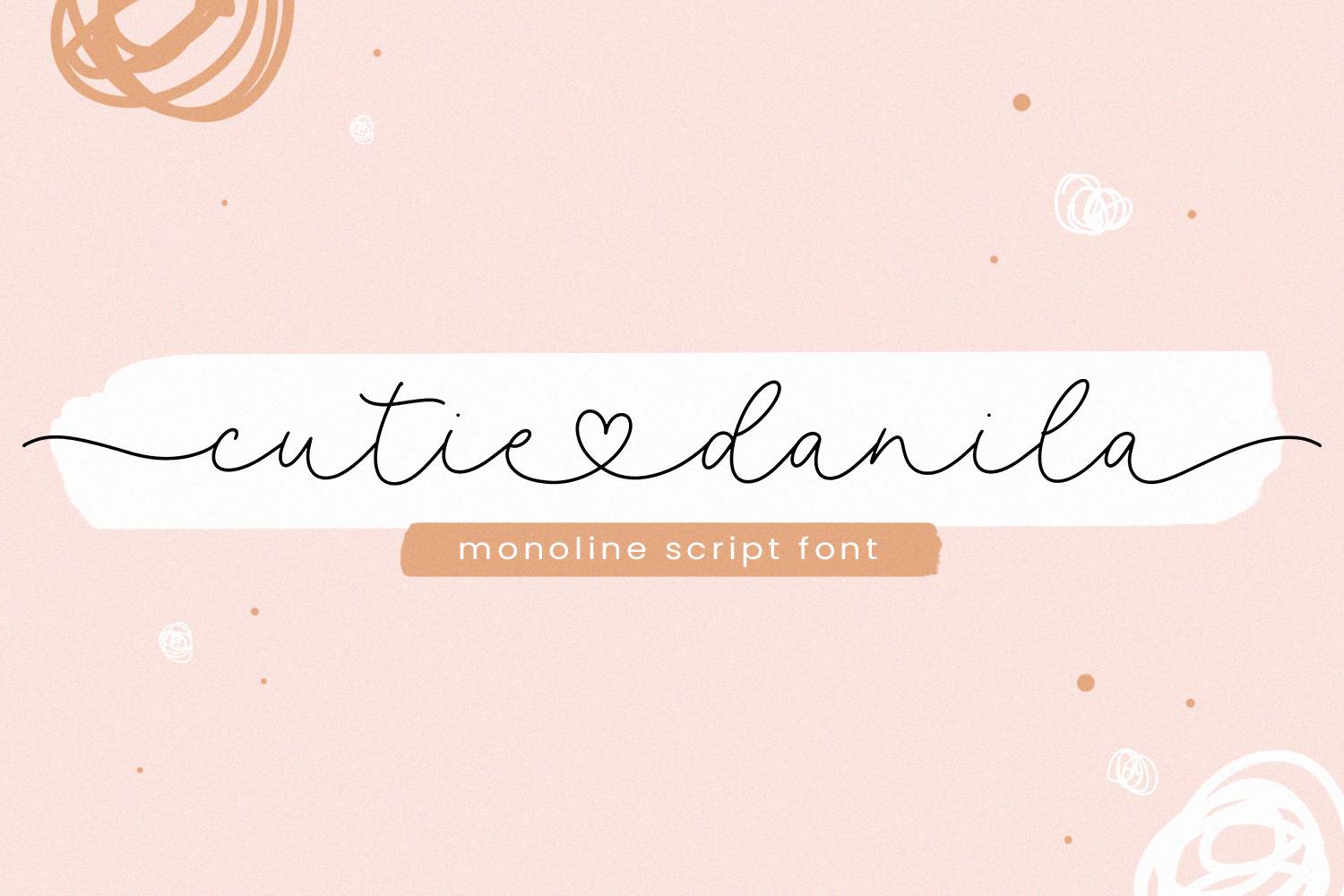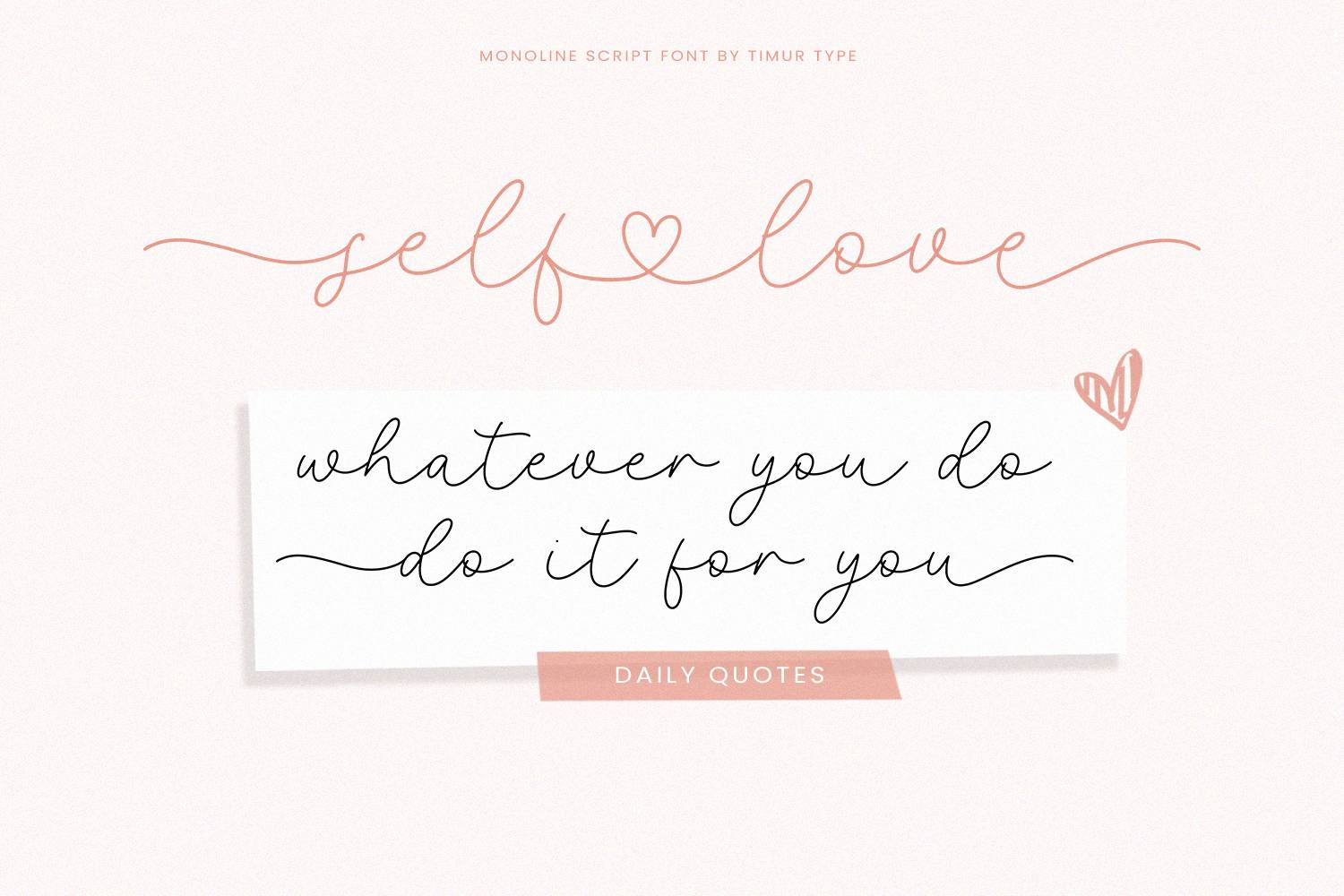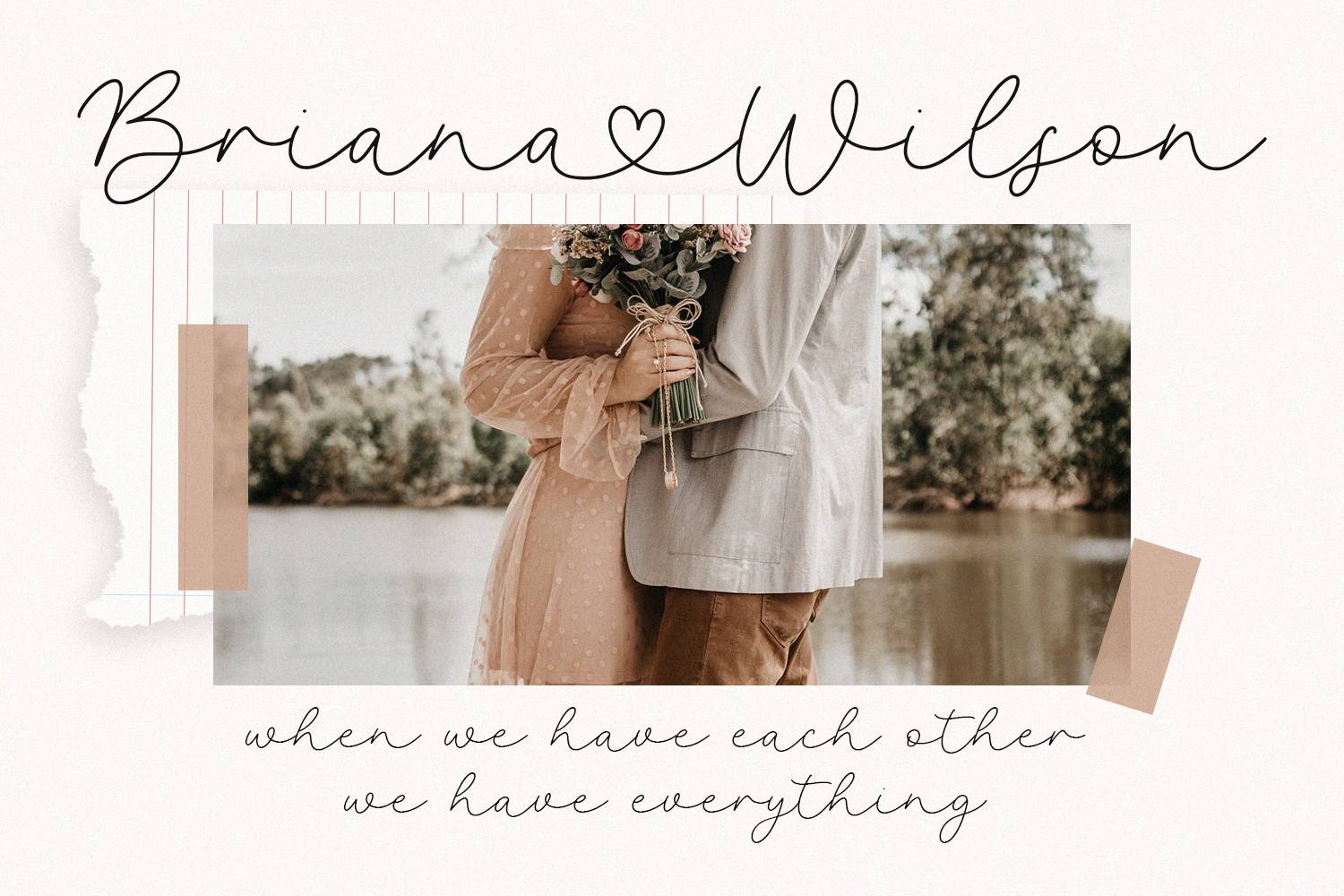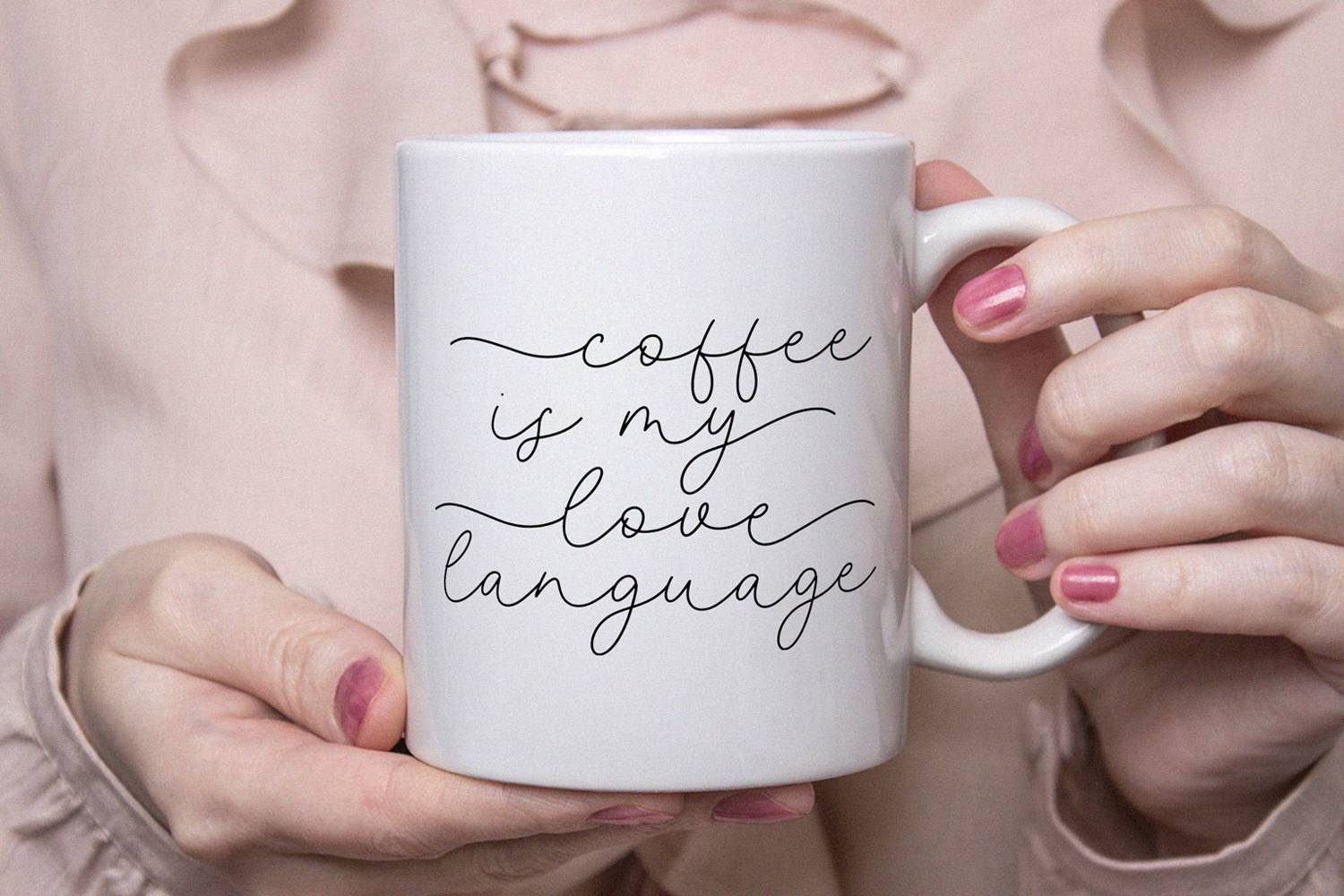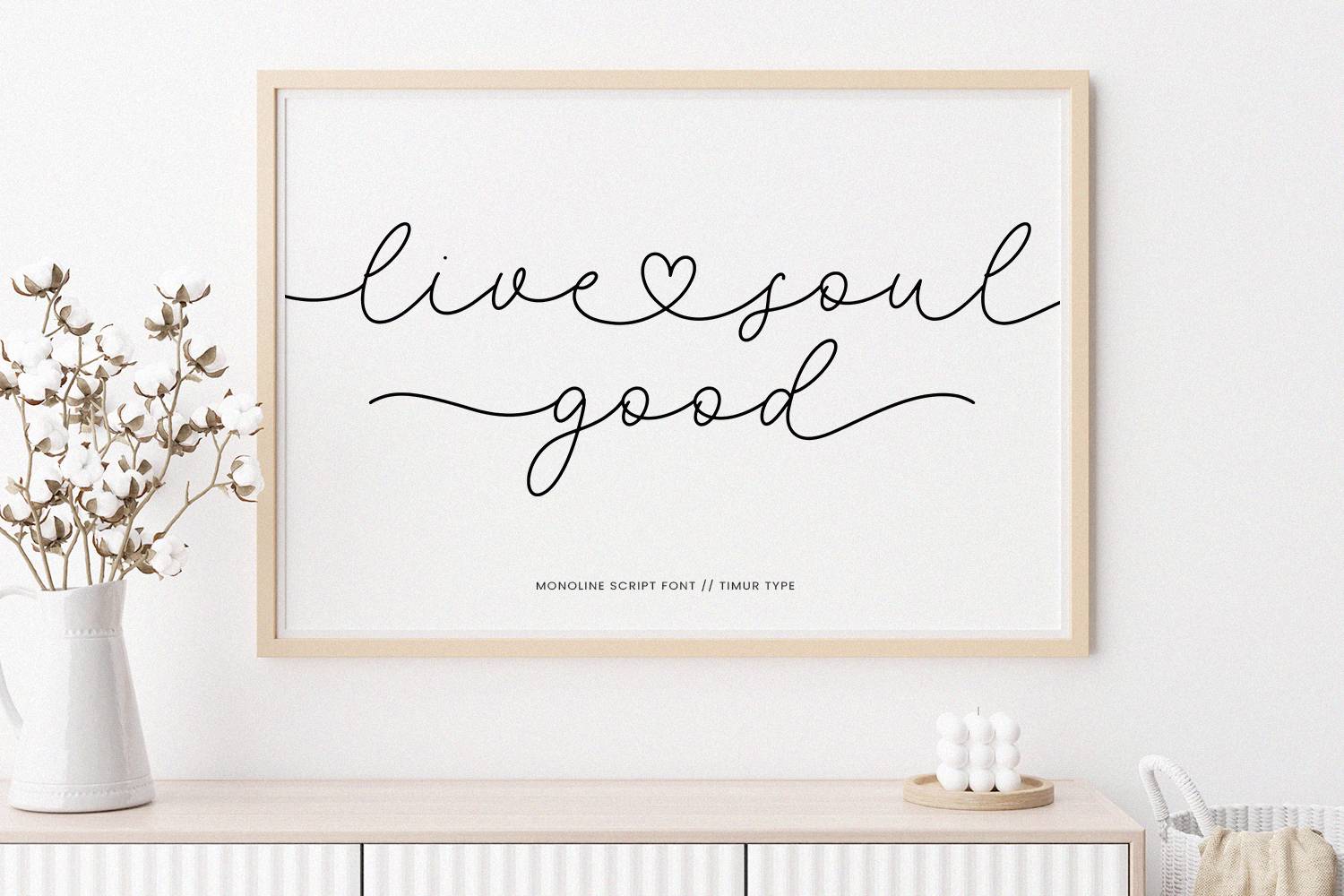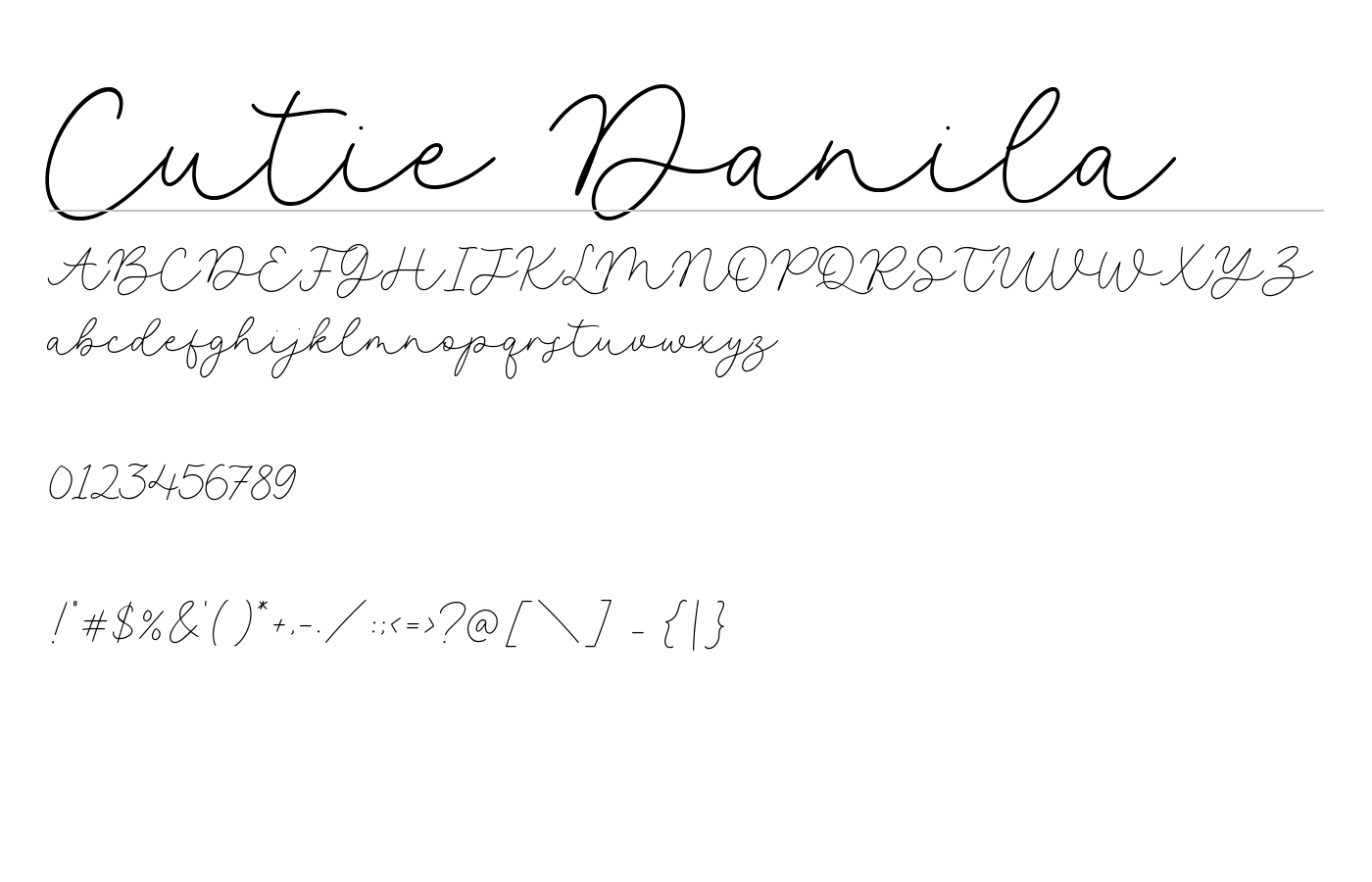
Cutie Danila is a delicate, handwritten script font characterized by its light weight and fluid, flowing strokes that create an elegant and personal feel. With its thin, graceful lines and playful curves, it works beautifully for feminine branding, invitations, and creative projects looking to convey warmth and charm. Its airy, casual style makes it ideal for logos, greeting cards, and social media graphics where a soft, approachable touch is desired.
Cutie Danila Font
About Cutie Danila Font